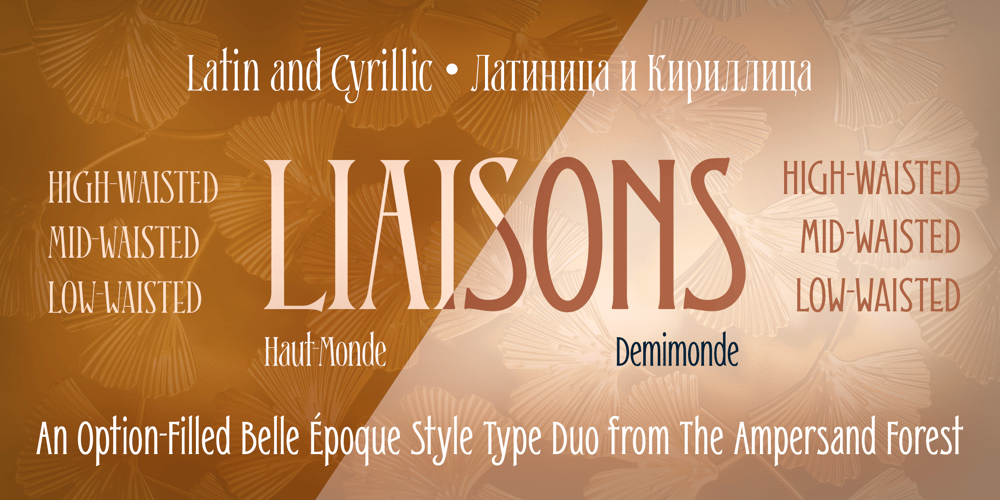
Liaisons
Liaisons font
Liaisons Font Family was designed by DC Scarpelli and published by The Ampersand Forest. Liaisons contains 2 styles and family package options. A Belle Époque humanist serif in two styles: crisp, high-contrast Haut-Monde and soft, low-contrast Demimonde…When you design a lot of display pieces, you’re often in need of tall, slim type. Liaisons provides that, in a distinct fin-de-siècle style inspired by the great posters of the Gilded Age from Sweden, Denmark, France, and Scotland. (The ampersand alone is a bit of a love letter to Charles Rennie Mackintosh!)Both styles use the same slim skeleton, and are named after the stratum of society where one might find… a “dancing partner.” HAUT-MONDE is a high contrast face of the sort that says “High Society.” Elegant and sleek, it speaks to the refinement of the moneyed classes of a bygone era. Great for high-end products, too! DEMIMONDE is soft and low-contrast — more reminiscent of hand-lettering on Art Nouveau/Jugendstil/Wiener Werkstätte advertisements and posters. A comfortably chic display face all around! Both typefaces feature full Western and Eastern Latin character sets, as well as full Cyrillic/Slavic ones.And, perhaps best of all, both typefaces feature capitals with high, middle, and low waists, so you can change up the look as you see fit!Part of The Ampersand Forest’s Sondheim Series